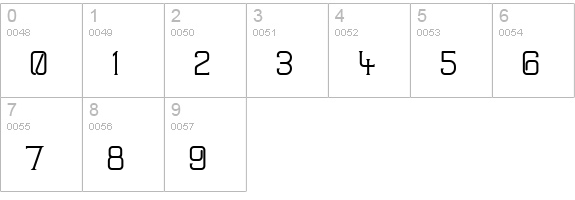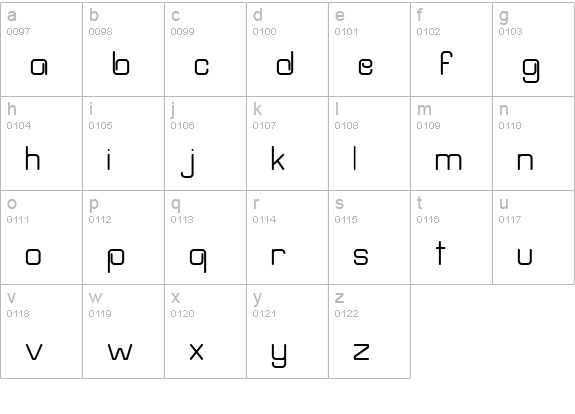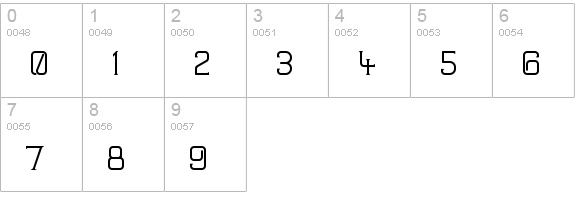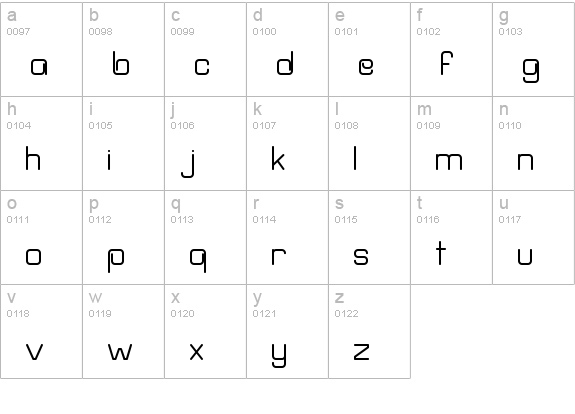
Frission font is a captivating and modern typeface that exudes elegance and sophistication. With its sleek lines and stylish curves, Frission adds a touch of class to any design project. Whether you're creating a logo, poster, or website, this versatile font is sure to make a bold statement. What sets Frission font apart is not only its stunning aesthetics but also its accessibility. Designed with creativity in mind, Frission is available for free download at FontsMarket.com. This means that you can effortlessly enhance your projects with this premium font without breaking the bank. Embrace the beauty and versatility of Frission font today and elevate your designs to new heights. Download it for free at FontsMarket.com and let your creativity shine.